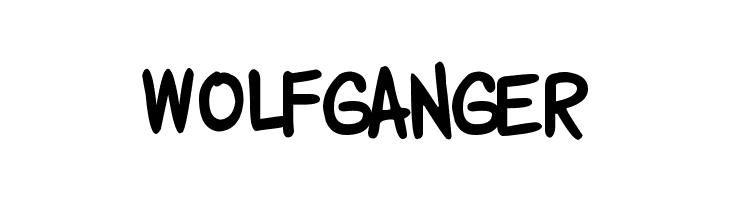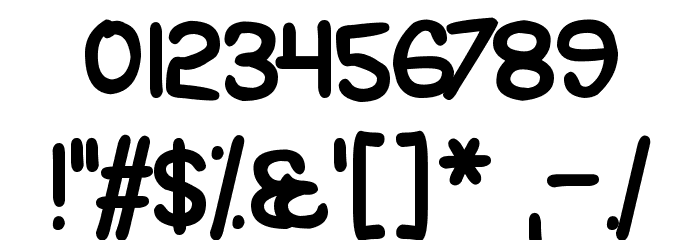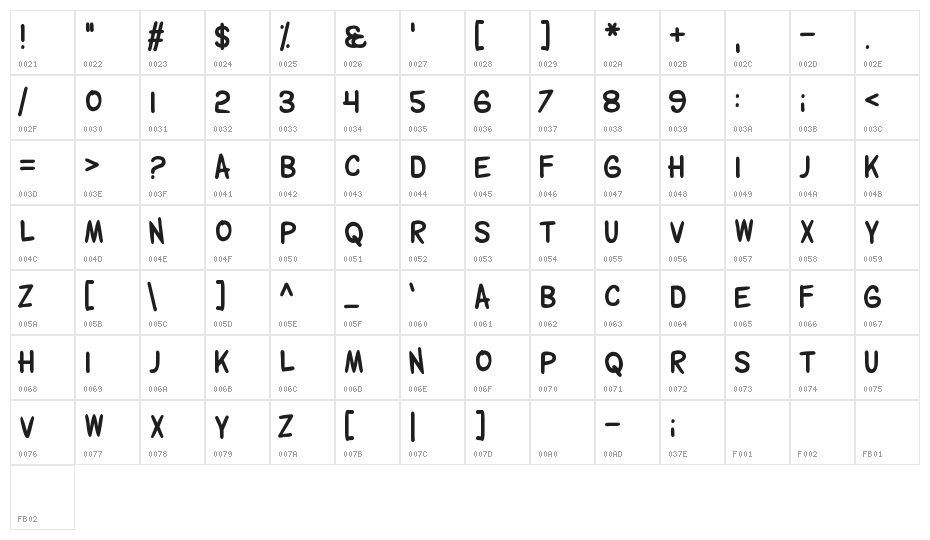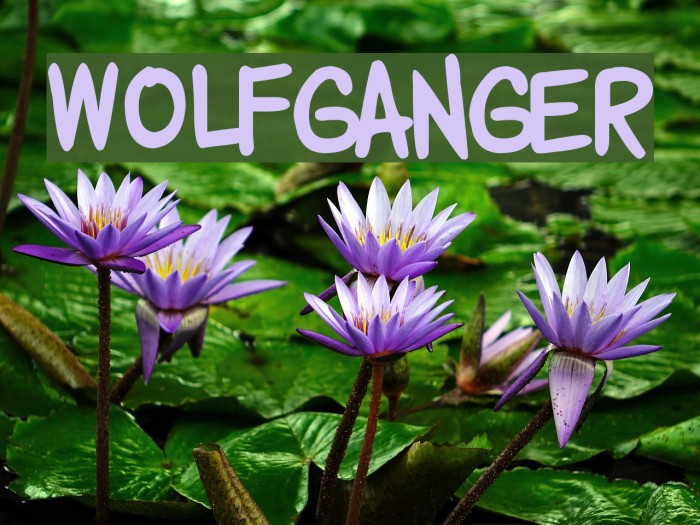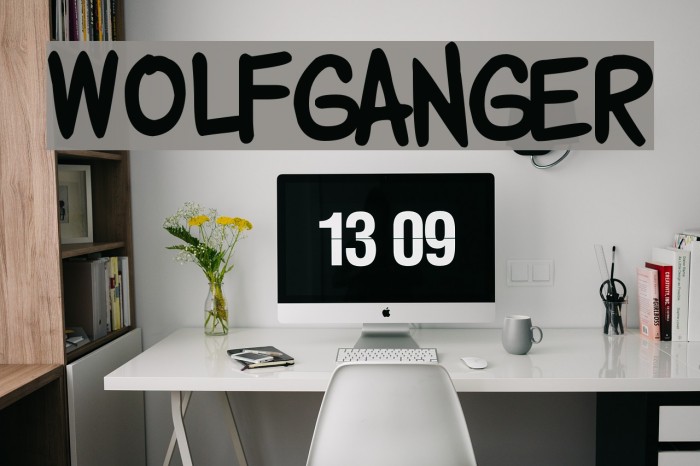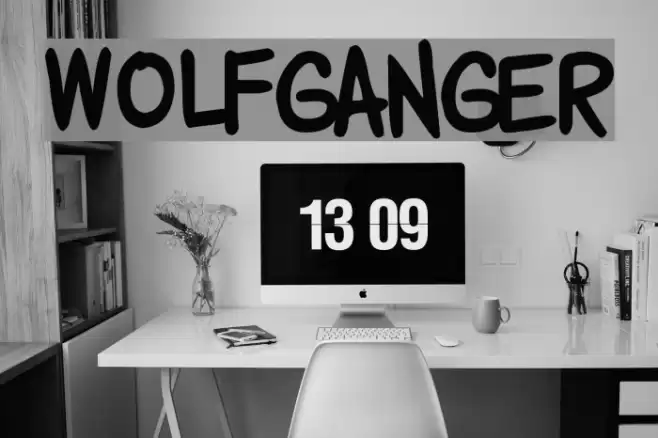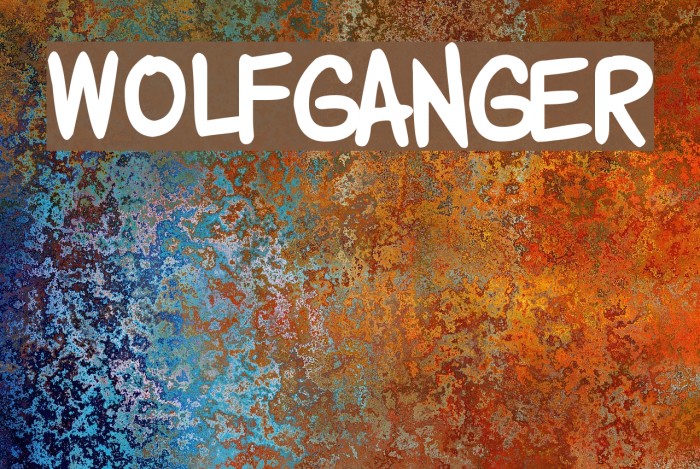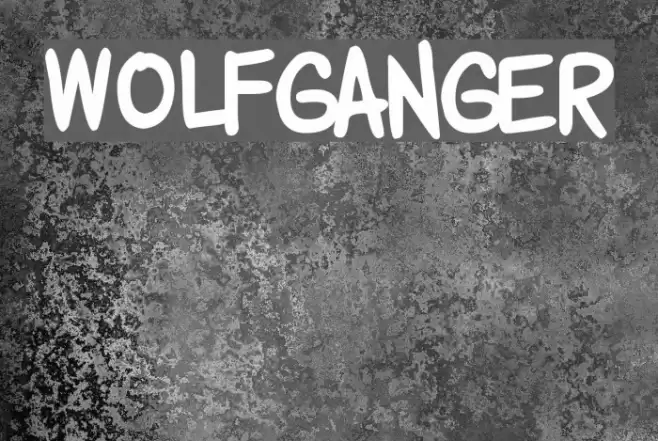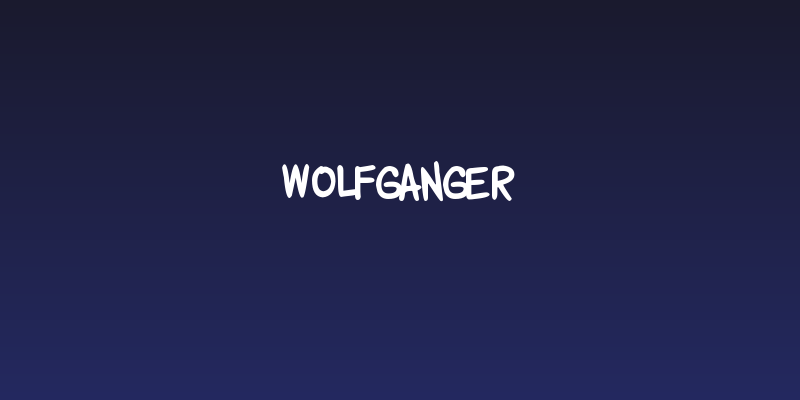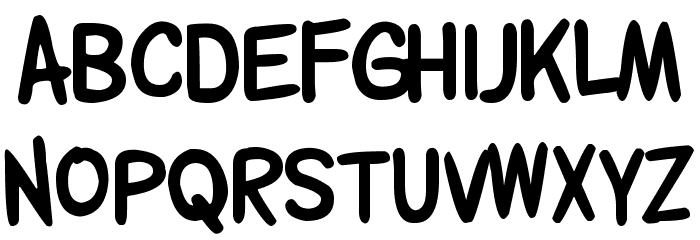
Wolfganger Font
Wolfganger Description
This font features a bold and playful style with rounded edges and a hand-drawn appearance. The characters are uniformly thick, giving it a consistent and cohesive look. It has a casual and friendly vibe, making it suitable for informal and creative projects. The letters are slightly slanted, adding a dynamic feel to the text. The numbers and special characters maintain the same playful style, ensuring a harmonious overall design.
| Proposed Projects | Ideal for children's books, comic strips, playful branding, and casual invitations. |